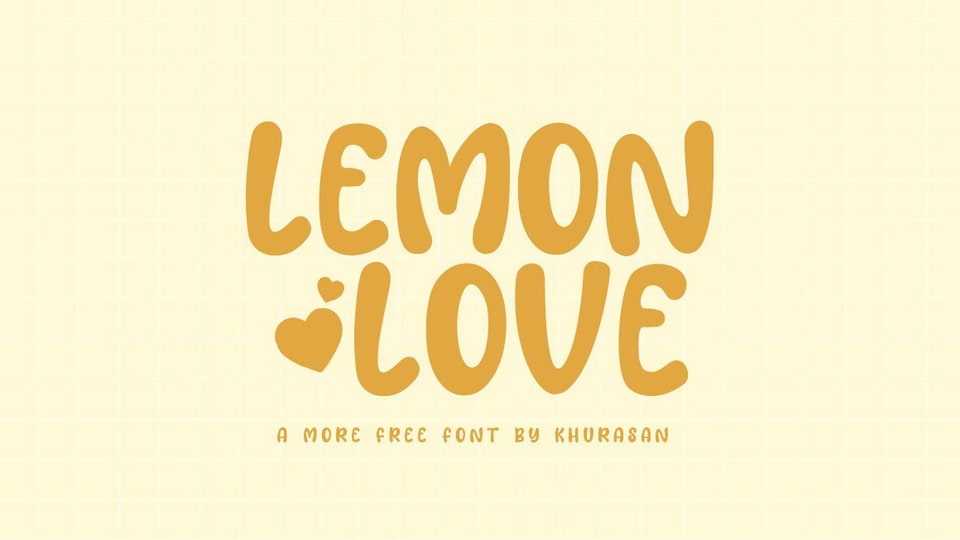
Download Lemon Love font, a funny and cute handwritten typeface. With its friendly look Lemon Love font is perfect for posters, logos, magazines, book covers, banners, and many more.